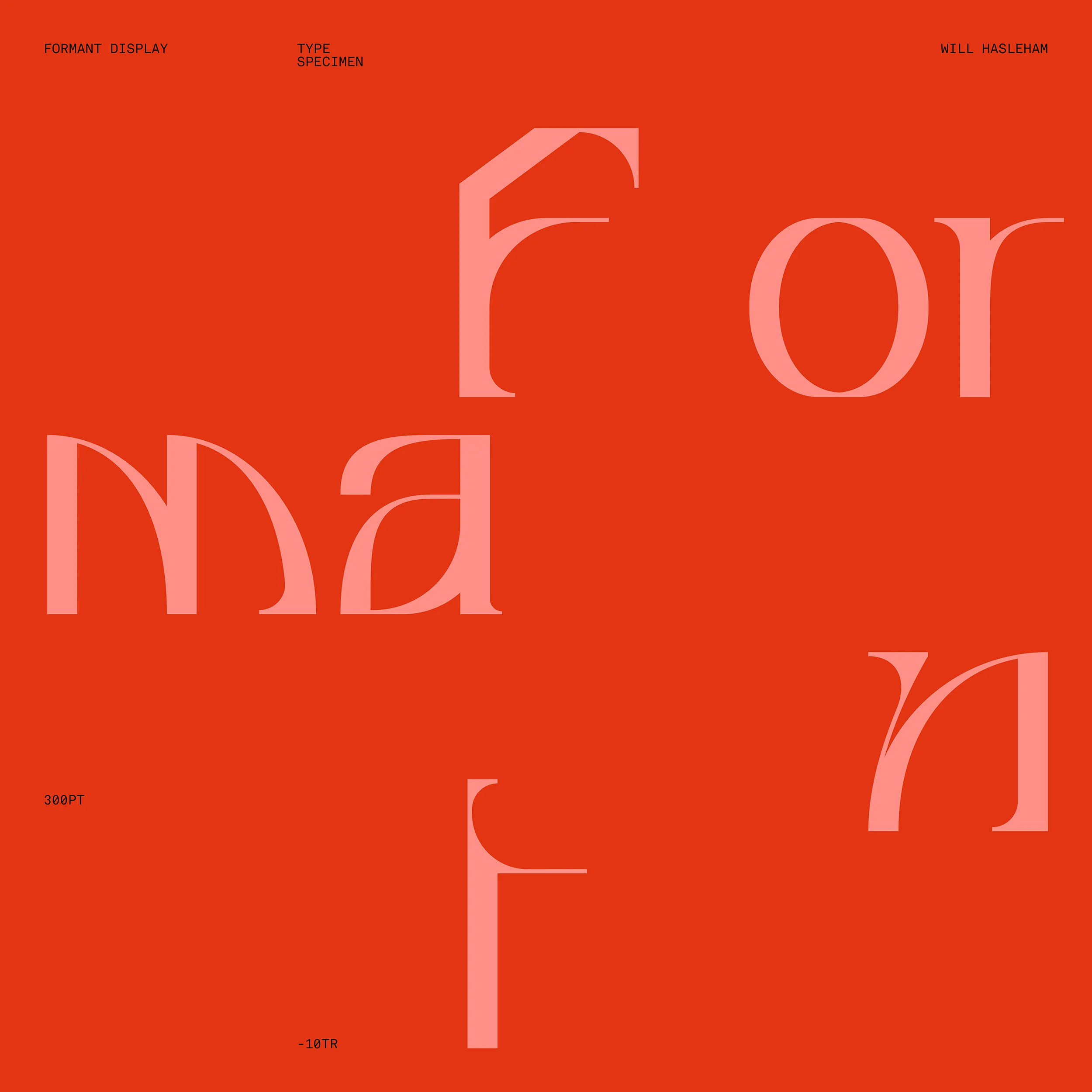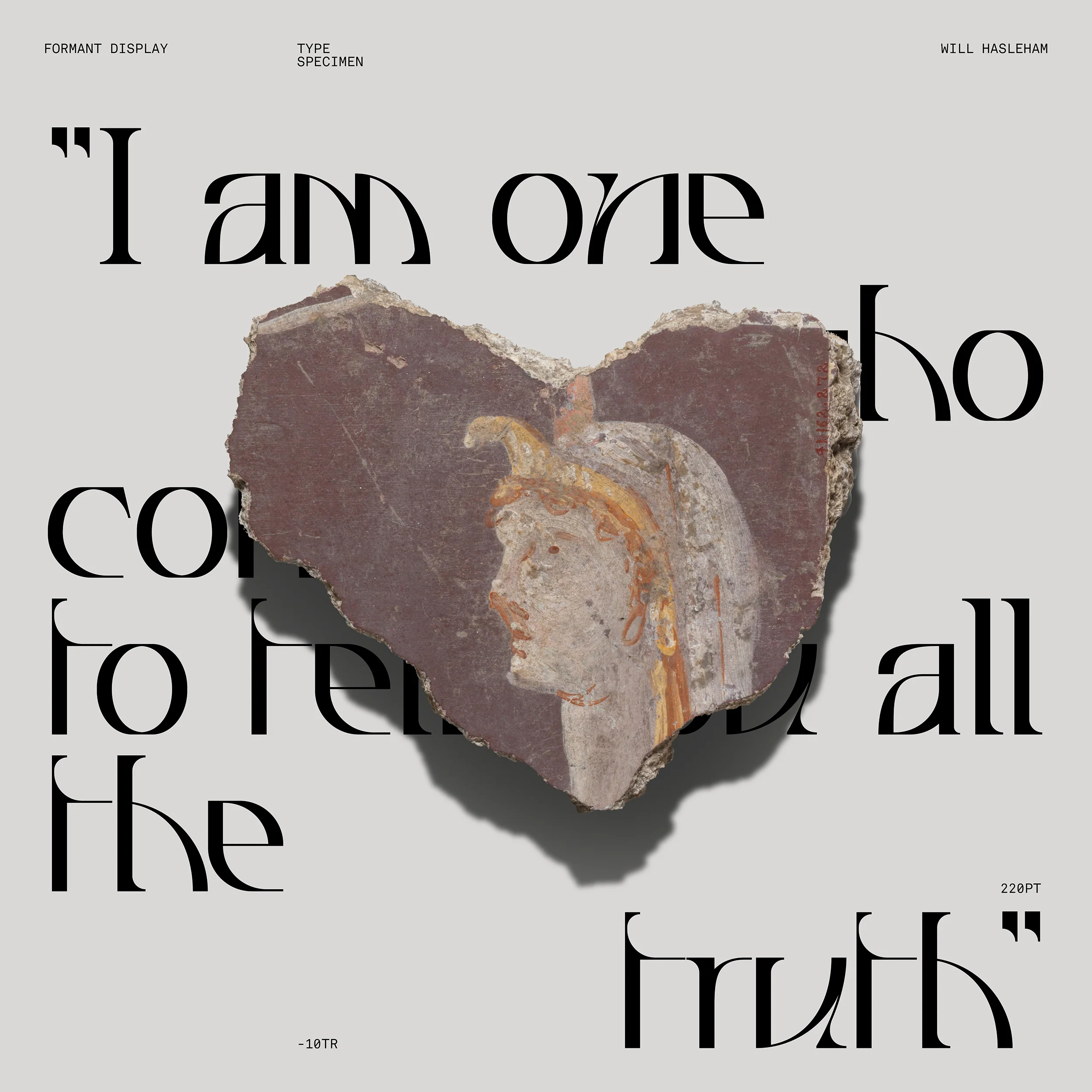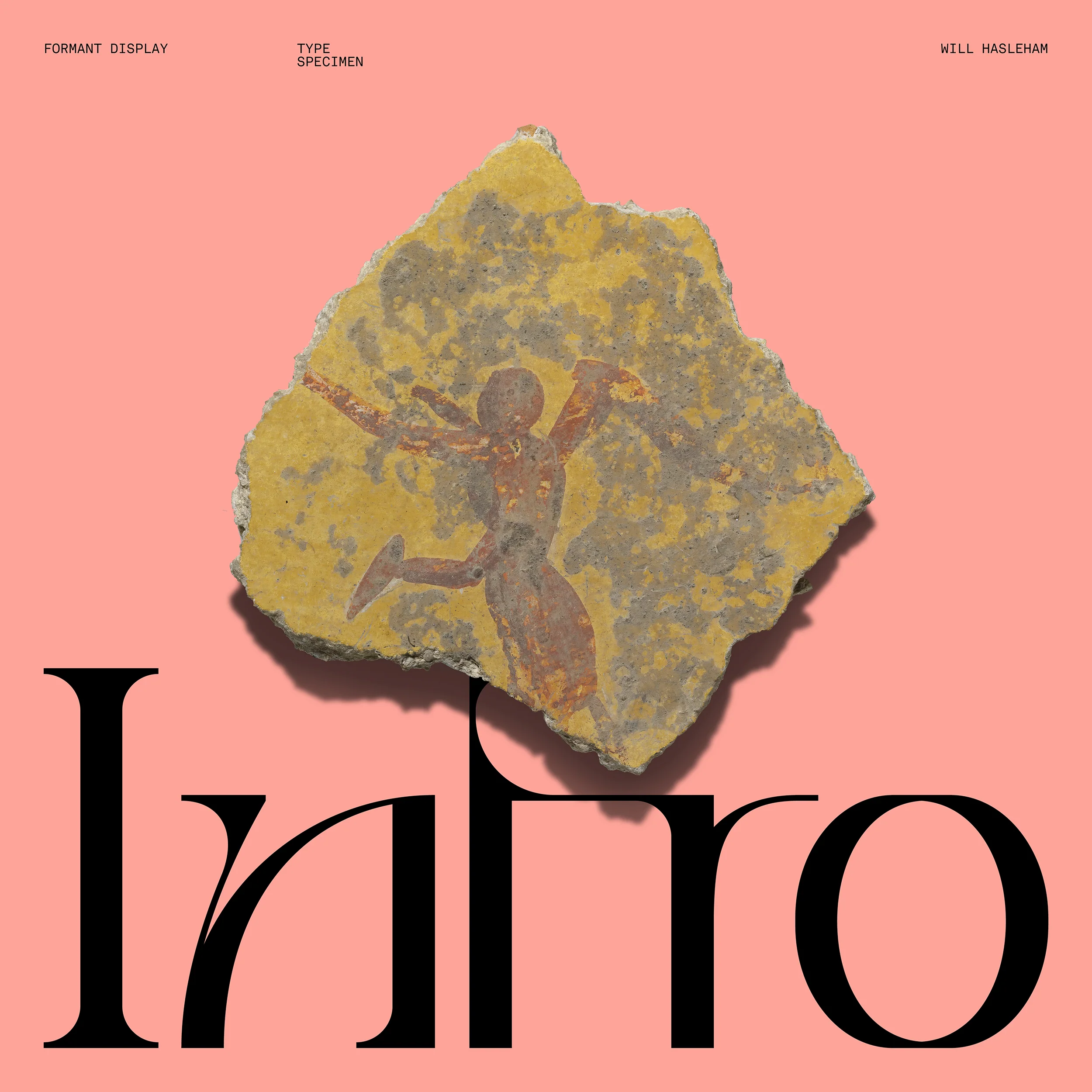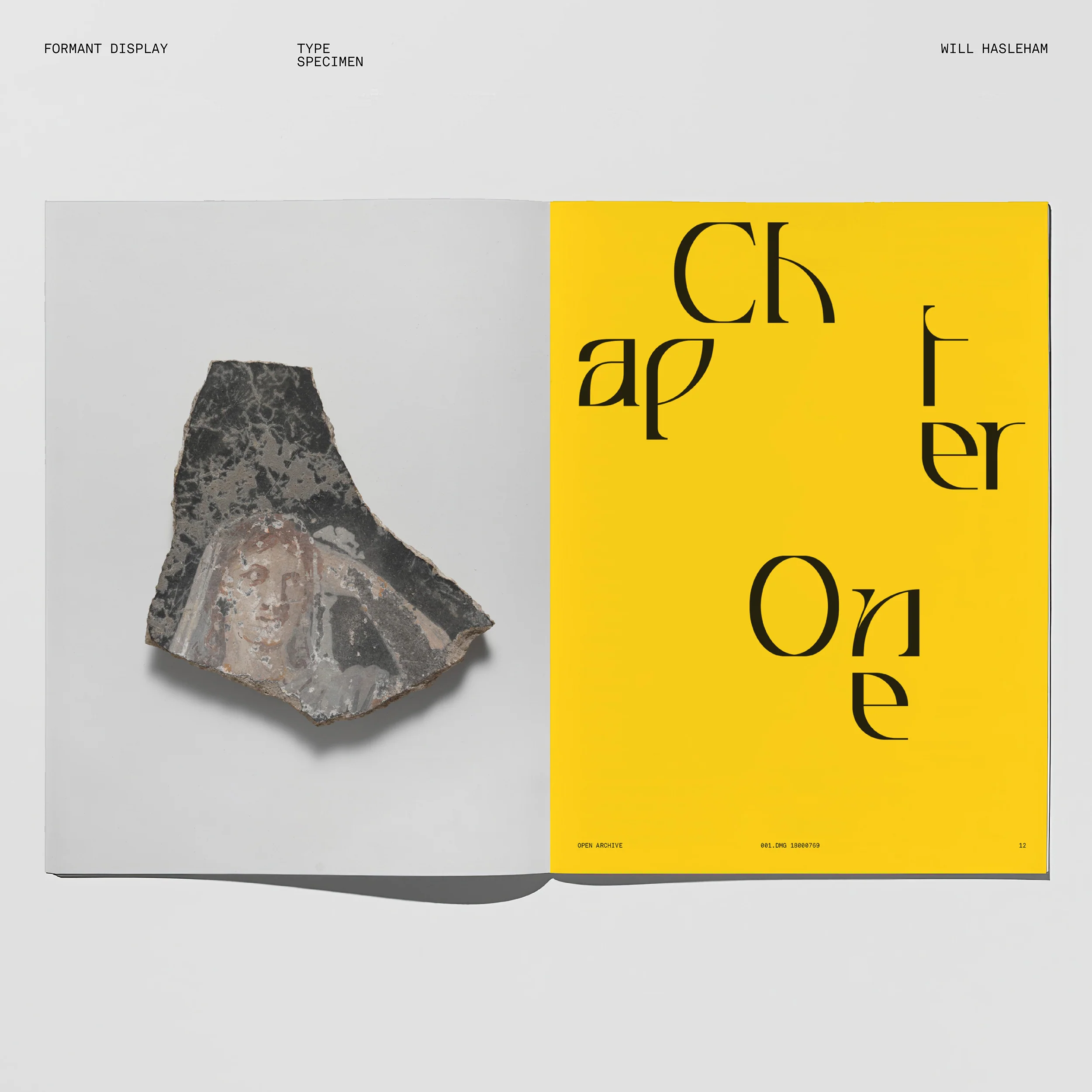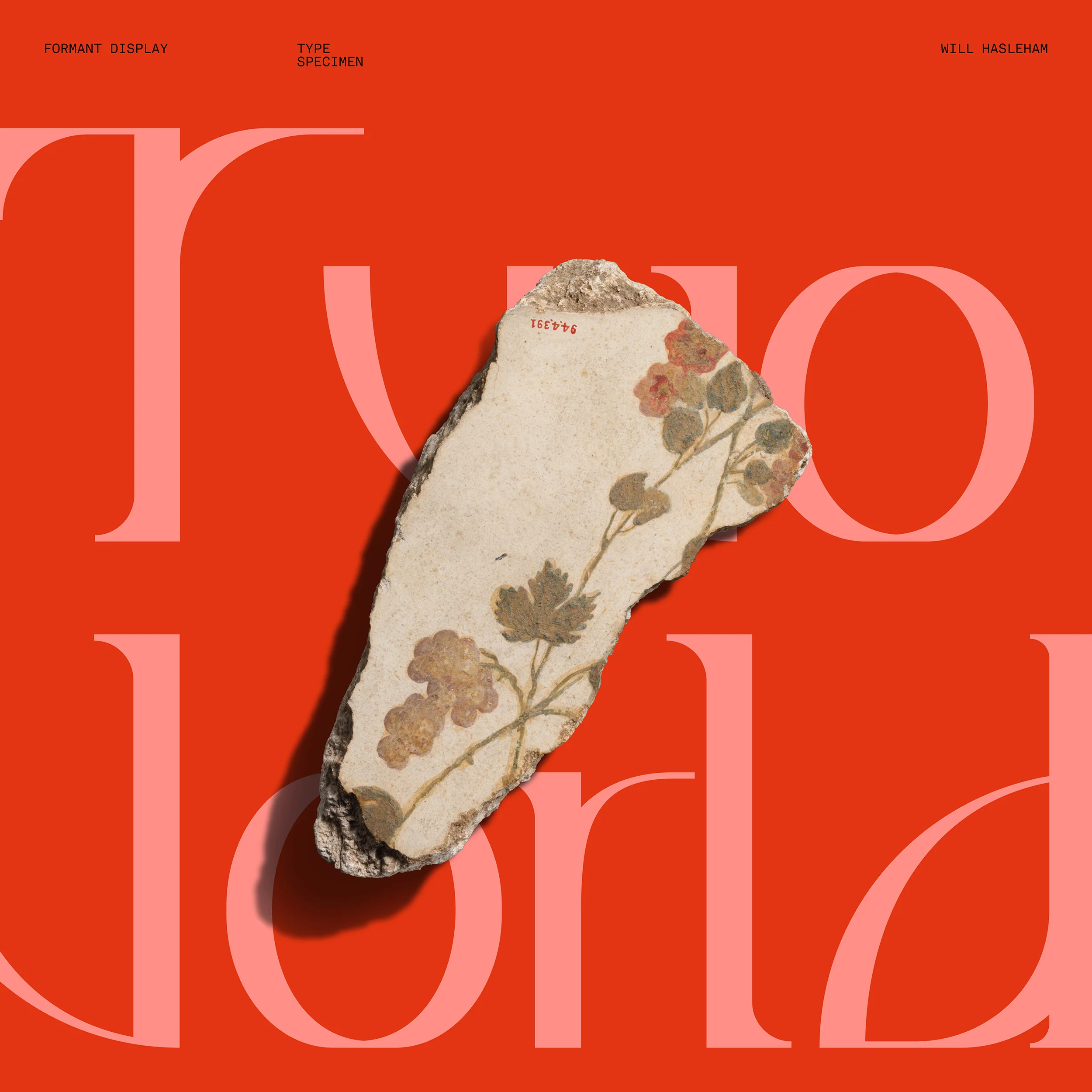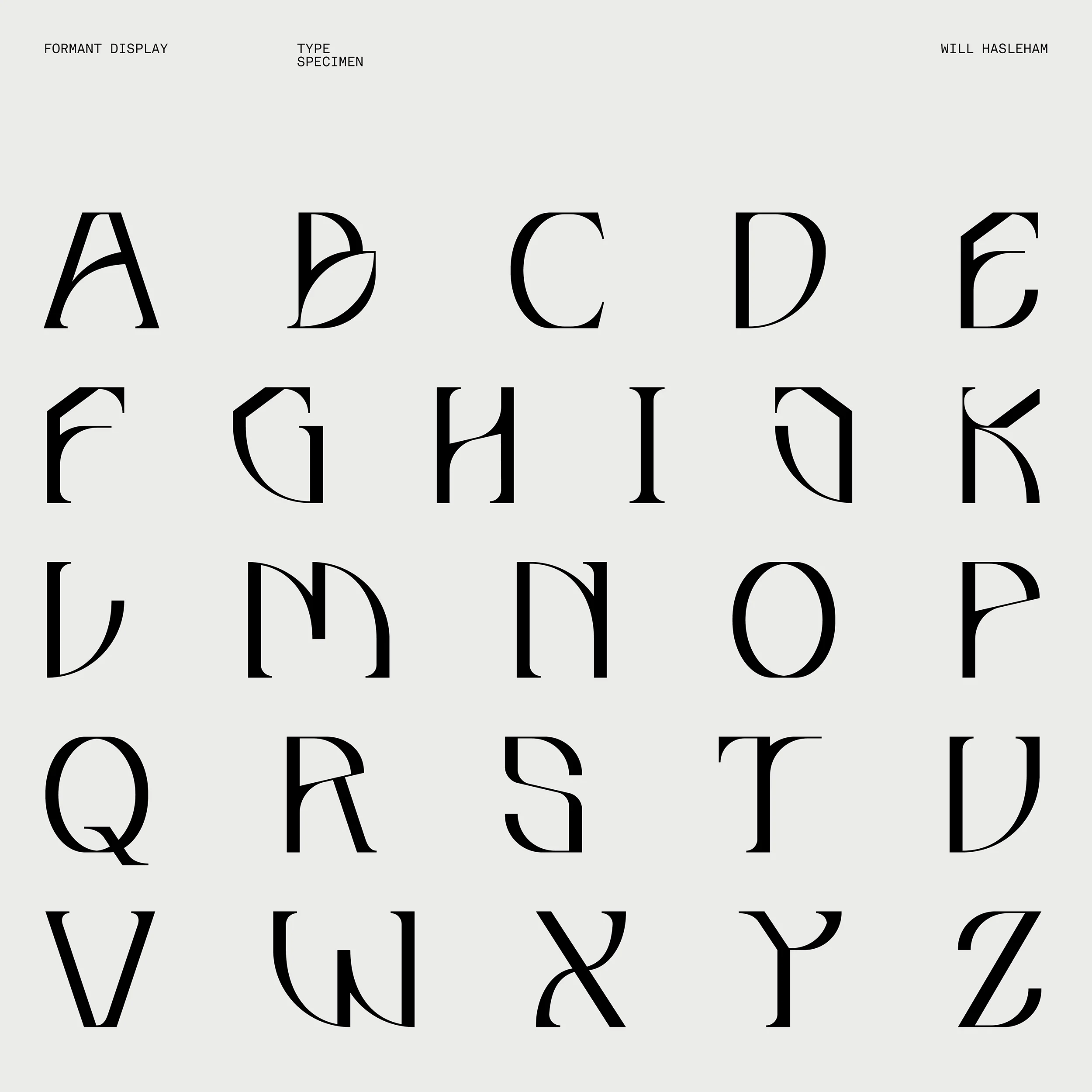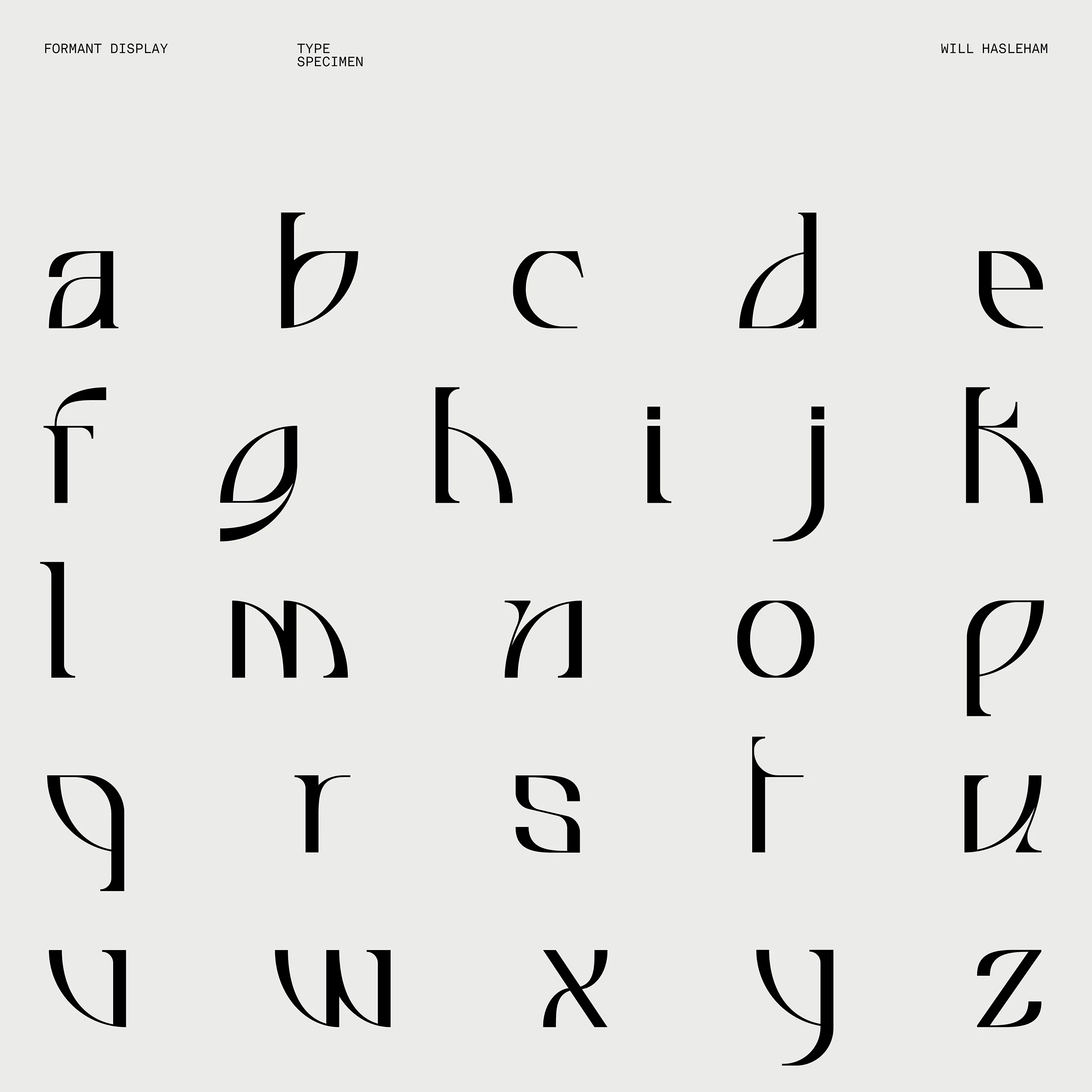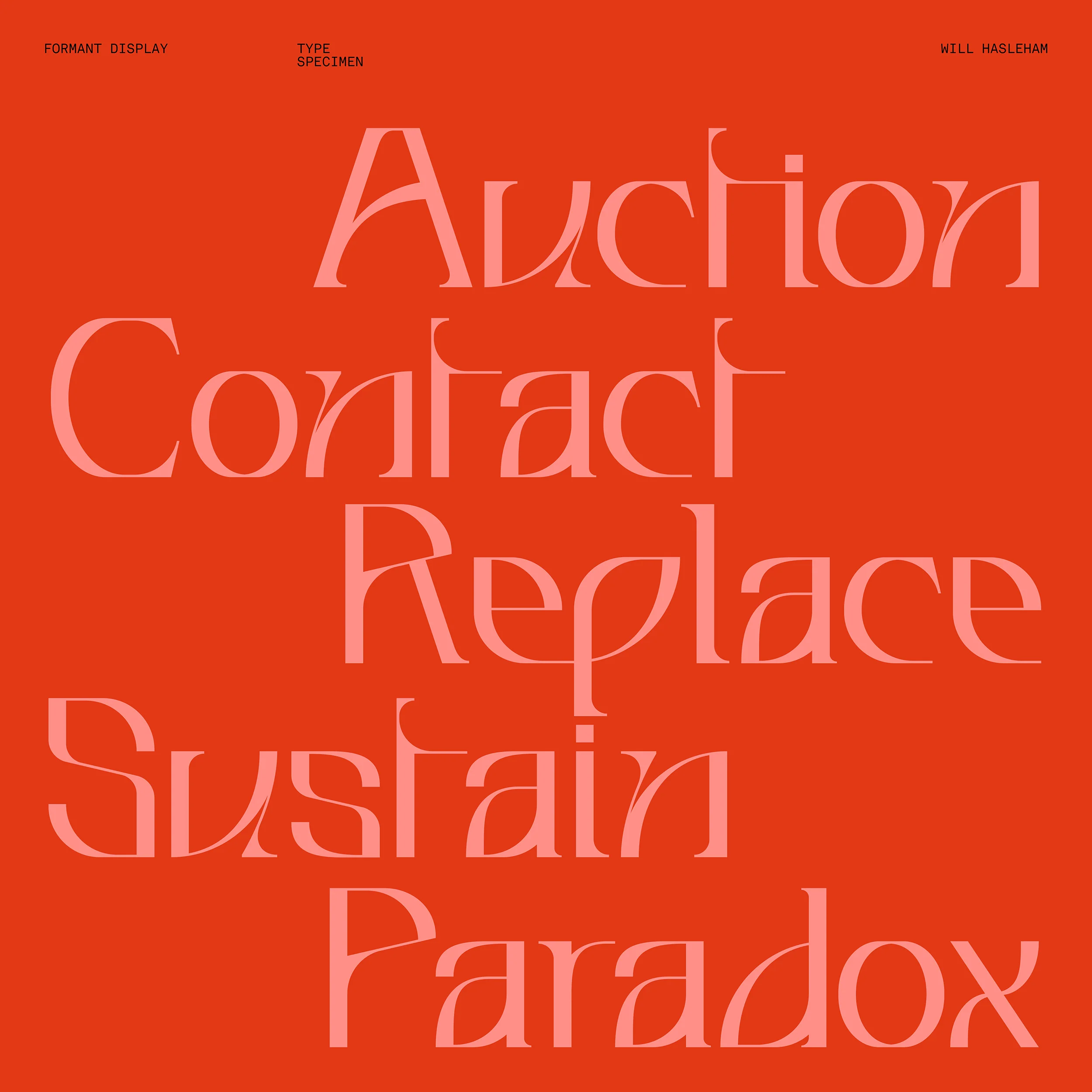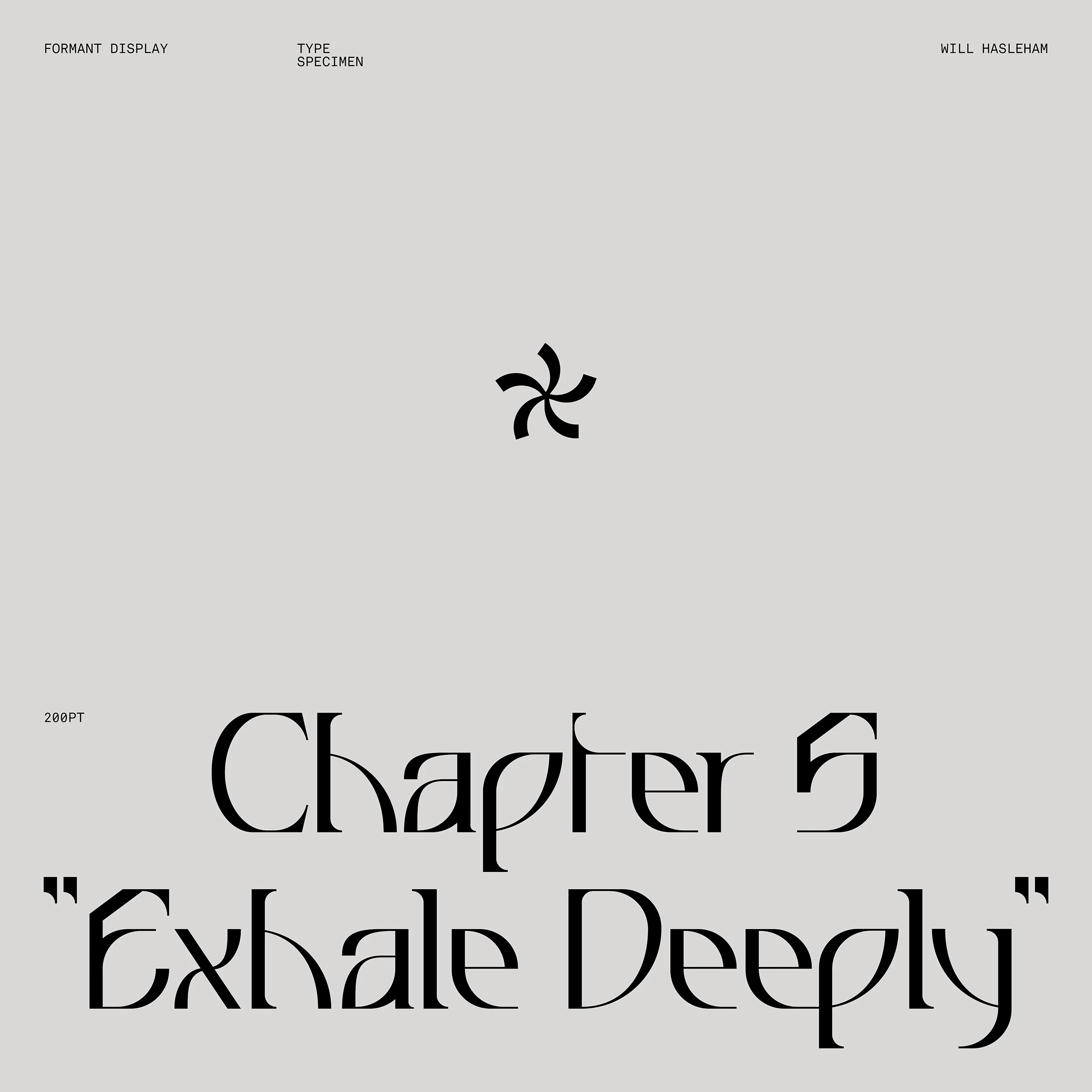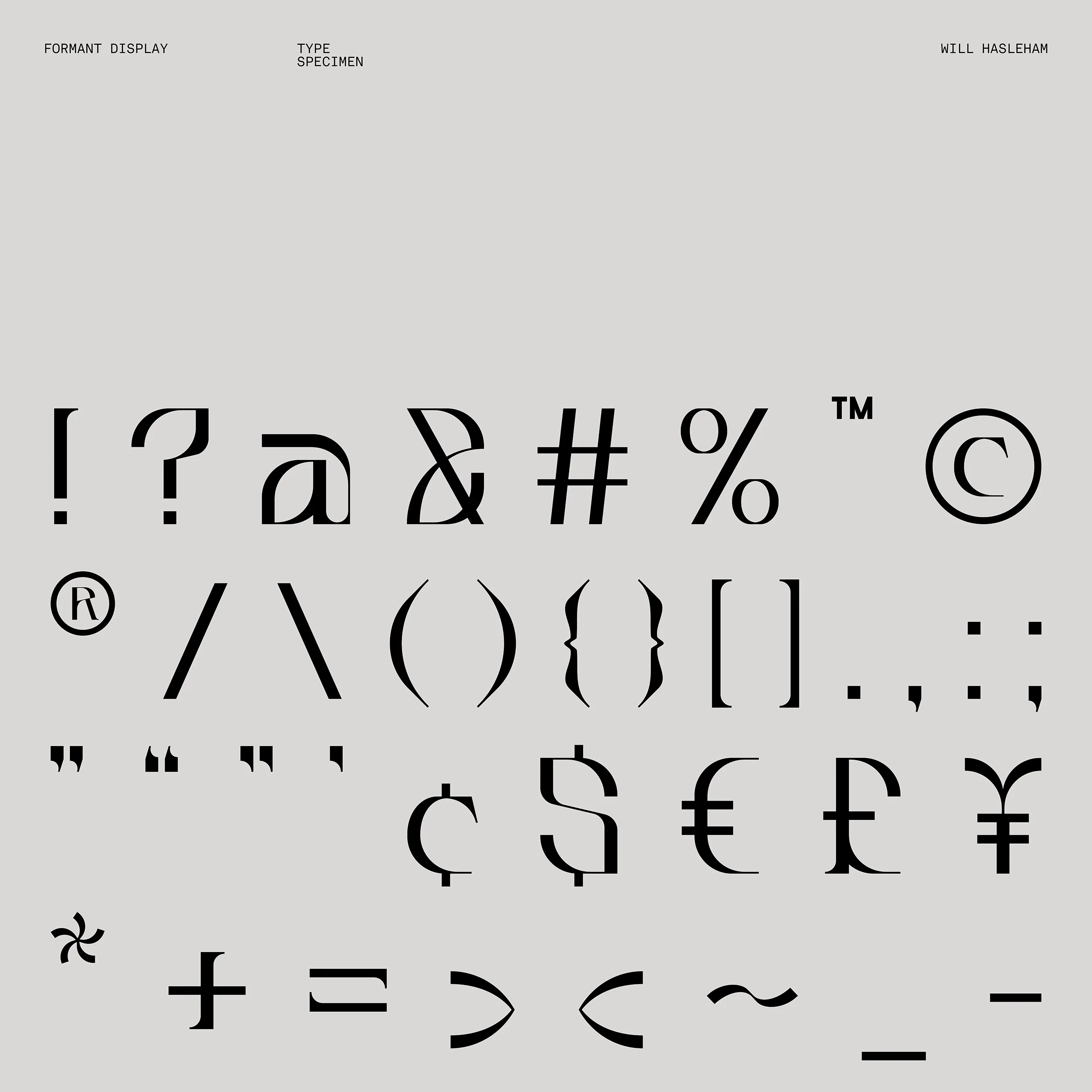
Formant Display
Constant is a modern and dynamic sans serif font inspired by the lemniscate. Its design allows glyphs to seamlessly extend and connect, creating a subtle sense of movement throughout the text. This unique feature adds an interesting touch of fluidity and continuity to typographic compositions.